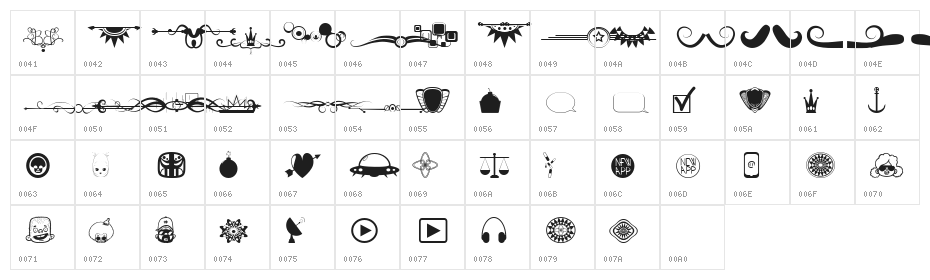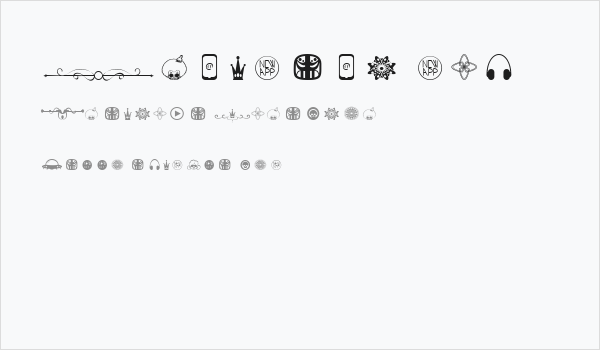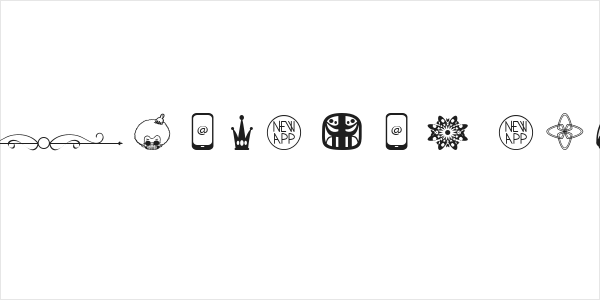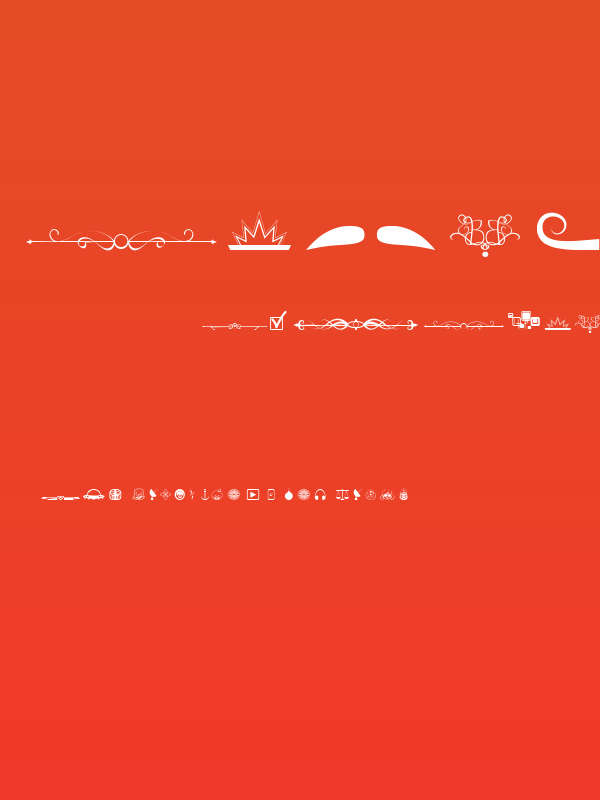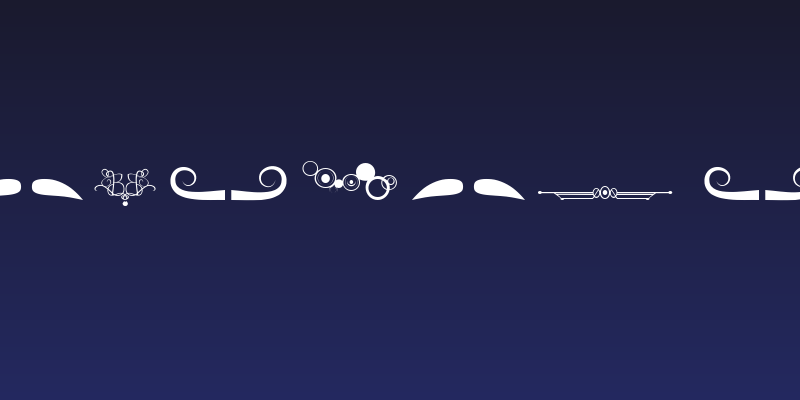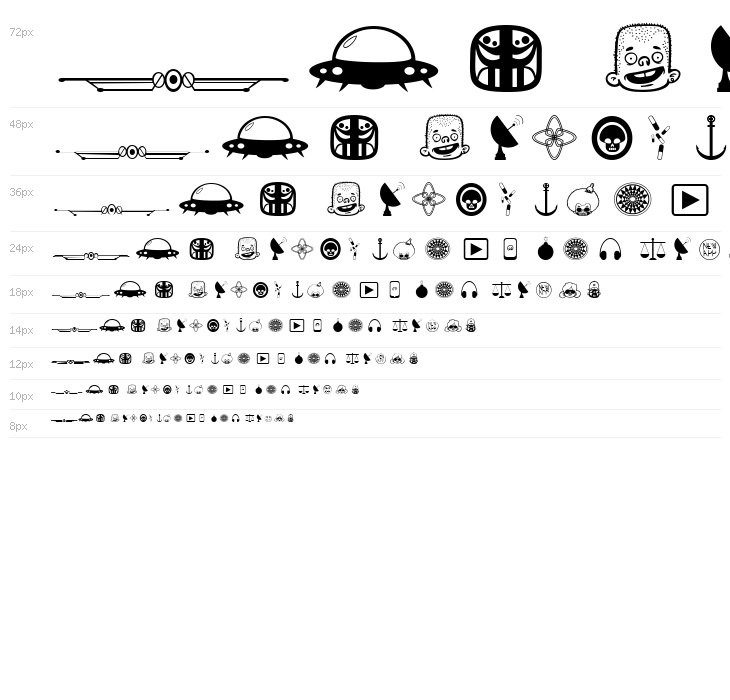
Ornament mix Font
Ornament mix Description
A decorative dingbat and symbol set featuring a mix of ornate flourishes, whimsical icons, and playful pictograms. The glyphs include borders, ornaments, faces, objects, and abstract shapes, rendered in both solid and outlined styles.
| Overall Style | Decorative, Playful, Eclectic |
| Use Case | Ornaments, Icons, Decorative accents |
| Proposed Projects | Invitations, greeting cards, scrapbooking, app icons, decorative dividers, playful branding, posters. |